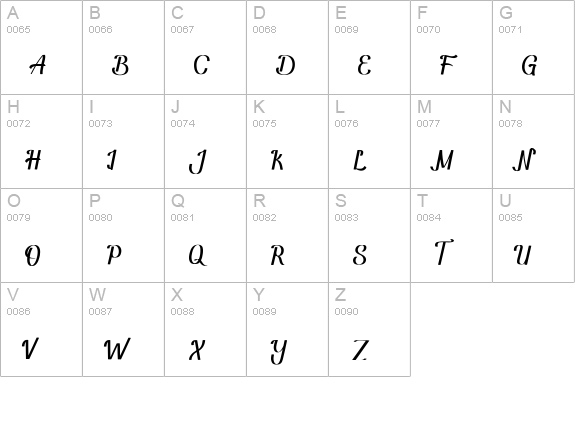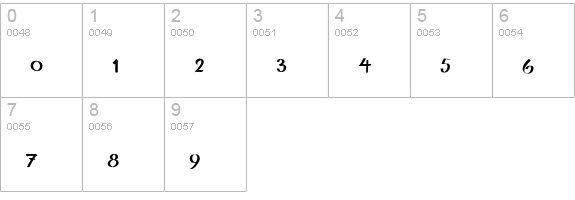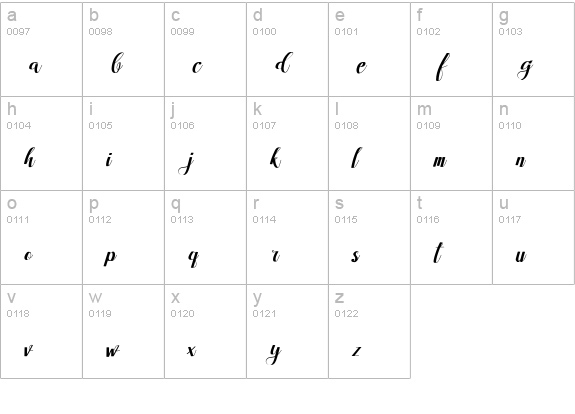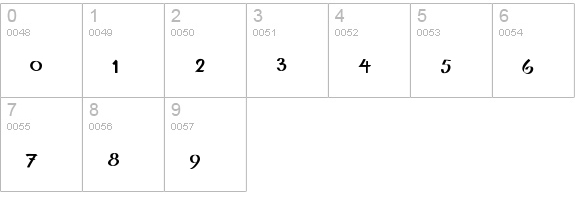
Amandella Script font is a beautifully crafted typeface that exudes elegance and sophistication. With its flowing and graceful curves, this script font is perfect for adding a touch of charm to your designs. Whether you're working on invitations, branding materials, or any other project that requires a dash of style, Amandella Script font is sure to impress.